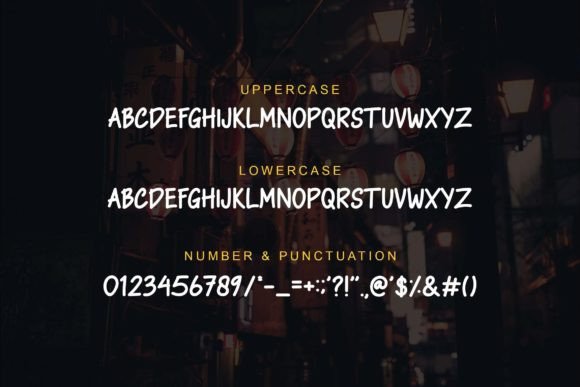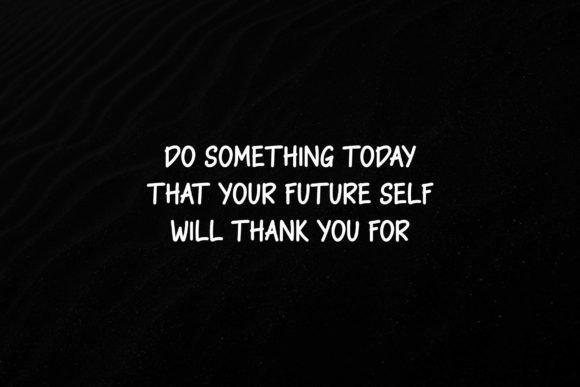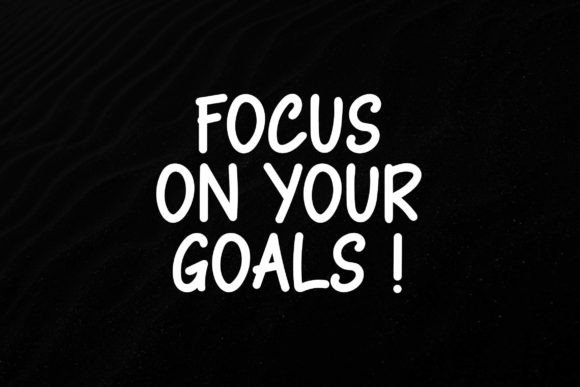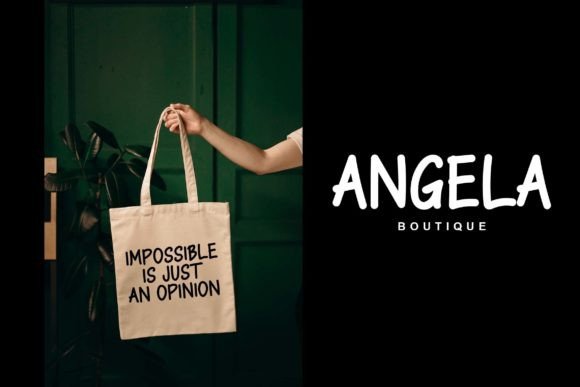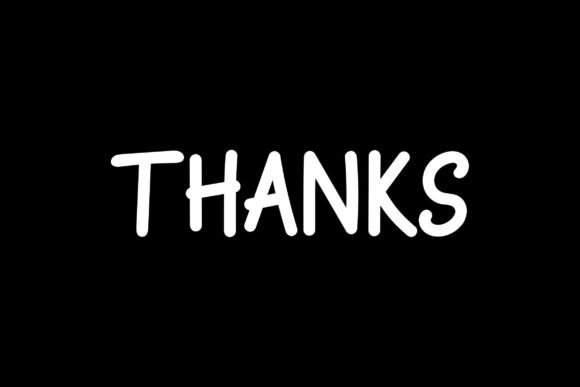
Ayakashi Font: The Cute and Fun Script Font for Your Creative Projects
Are you a designer or crafter looking for a unique and authentic font to elevate your creative projects? Look no further than the Ayakashi Font! This cute and fun script font is perfect for adding a touch of personality to your posters, logos, stickers, and more.
What is Ayakashi Font?
Ayakashi Font is a strikingly authentic script font that is sure to capture the attention of your audience. With its playful and whimsical feel, this font is ideal for creative projects that require a touch of fun and personality. Whether you’re designing a poster, logo, or invitation card, Ayakashi Font is the perfect choice.
Features of Ayakashi Font
- Cute and Fun Design: Ayakashi Font features a unique and playful design that is sure to add a touch of personality to your creative projects.
- Authentic Feel: This font has a strikingly authentic feel that will make your designs stand out from the crowd.
- Versatile: Ayakashi Font is perfect for a wide range of creative projects, including posters, logos, stickers, jerseys, invitation cards, brochures, and more.
- Easy to Read: Despite its playful design, Ayakashi Font is easy to read and understand, making it perfect for use in a variety of contexts.
Uses of Ayakashi Font
Ayakashi Font is a versatile font that can be used in a wide range of creative projects. Here are some ideas to get you started:
- Posters: Add a touch of personality to your posters with Ayakashi Font. Perfect for advertising, promotions, and events.
- Logos: Create a unique and memorable logo for your business or brand with Ayakashi Font.
- Stickers: Design fun and colorful stickers with Ayakashi Font that are perfect for laptops, water bottles, and more.
- Jerseys: Add a touch of personality to your sports jerseys or team wear with Ayakashi Font.
- Invitation Cards: Create beautiful and unique invitation cards for weddings, parties, and other events with Ayakashi Font.
- Brochures: Use Ayakashi Font to add a touch of personality to your brochures and marketing materials.
Why Choose Ayakashi Font?
There are many fonts to choose from, but Ayakashi Font stands out from the crowd. Here are some reasons why you should choose Ayakashi Font for your creative projects:
- Unique Design: Ayakashi Font features a unique and playful design that is sure to capture the attention of your audience.
- High-Quality: This font is designed with high-quality and precision, ensuring that it looks great in any context.
In conclusion, Ayakashi Font is a cute and fun script font that is perfect for adding a touch of personality to your creative projects. With its strikingly authentic feel and versatile design, this font is ideal for a wide range of applications. Whether you’re a designer or crafter, Ayakashi Font is a great choice for anyone looking to add a unique touch to their work. So why wait? Download Ayakashi Font today and start creating!